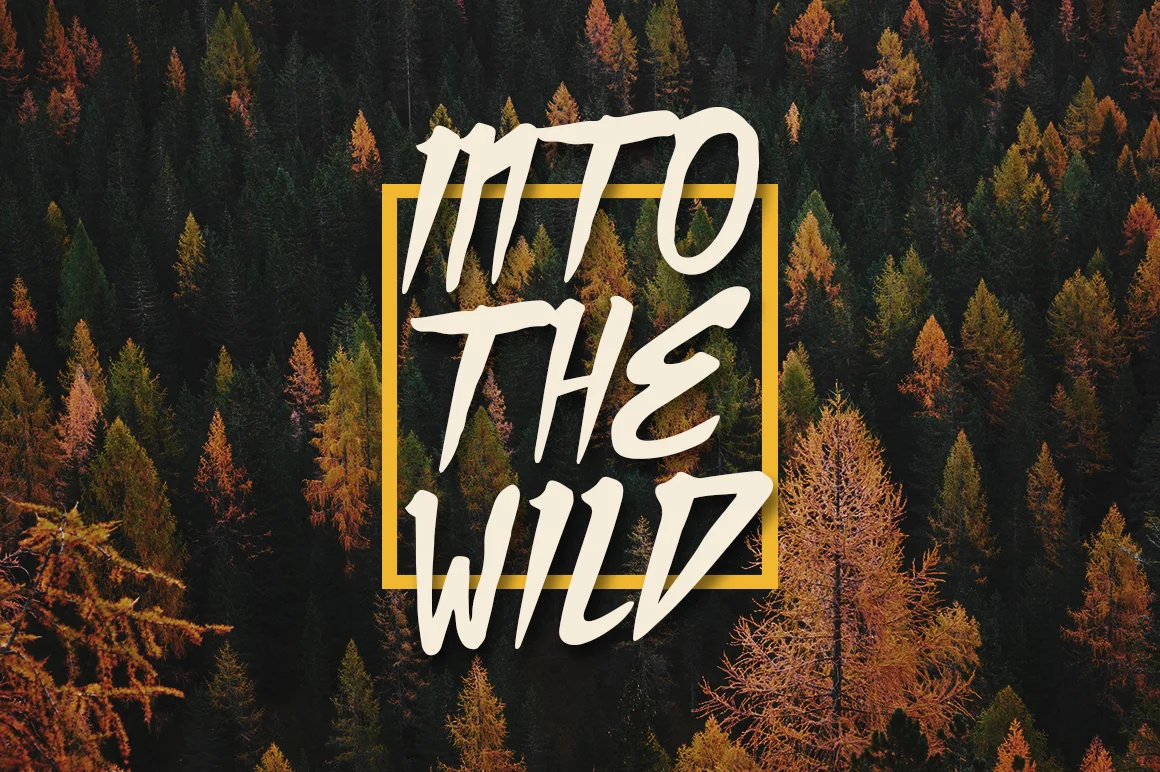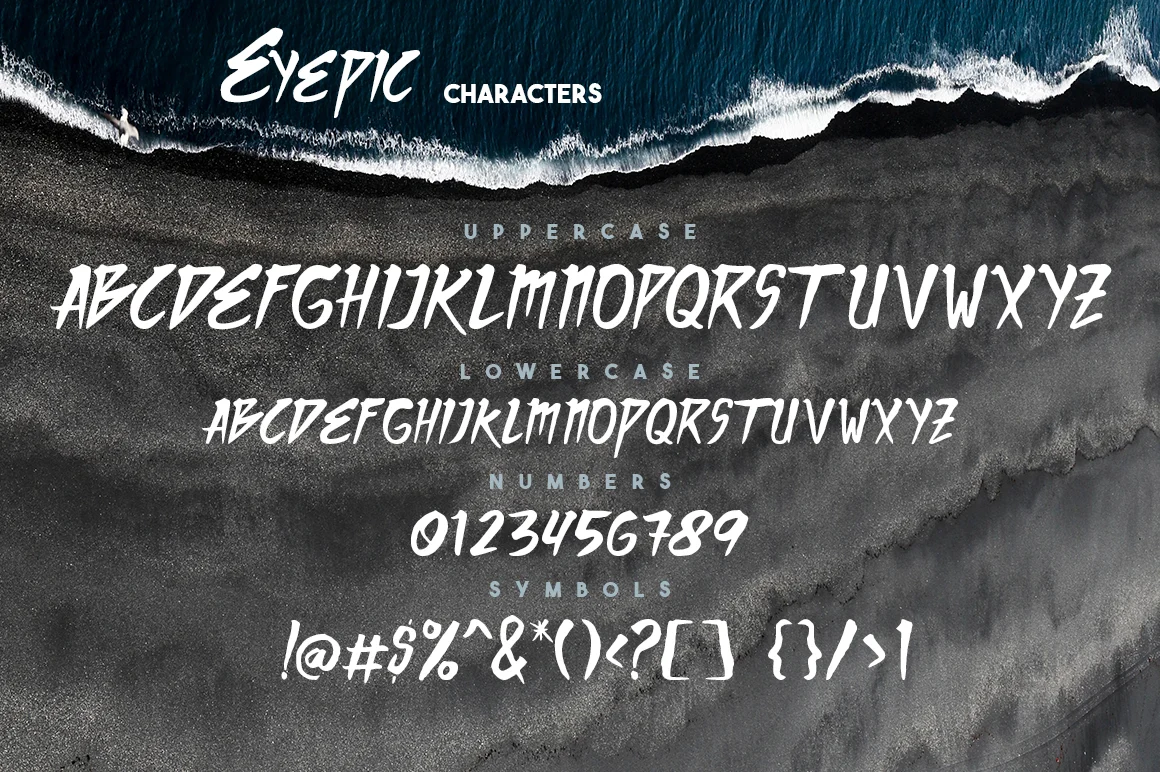
Eyepic Typeface Font
a EYEPIC TYPEFACE handmade font, Can make it easier to convey the message in your design. Use for awesome display, labeling, clothing, movie sceen, poster, movie title, gigs, album covers, logos, and much more.
EyepicTypeface
Uppercases & Lowercases
Numerals & Punctuations